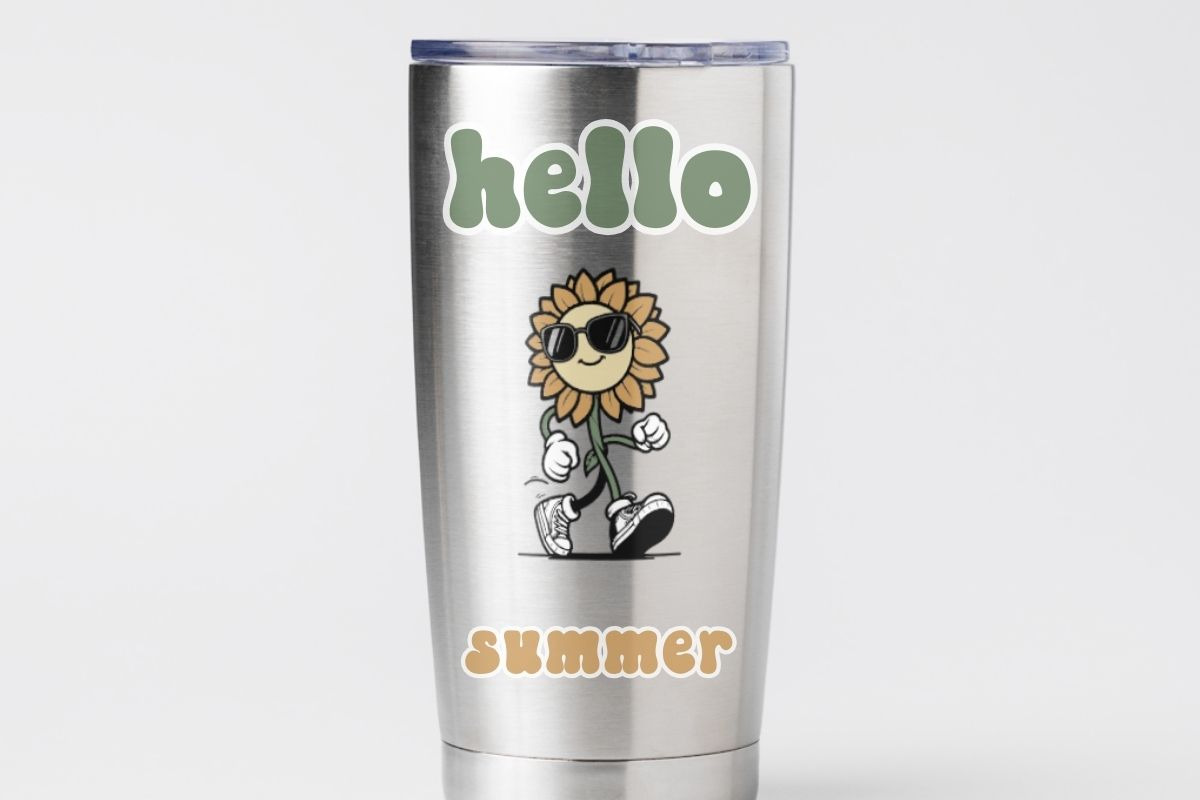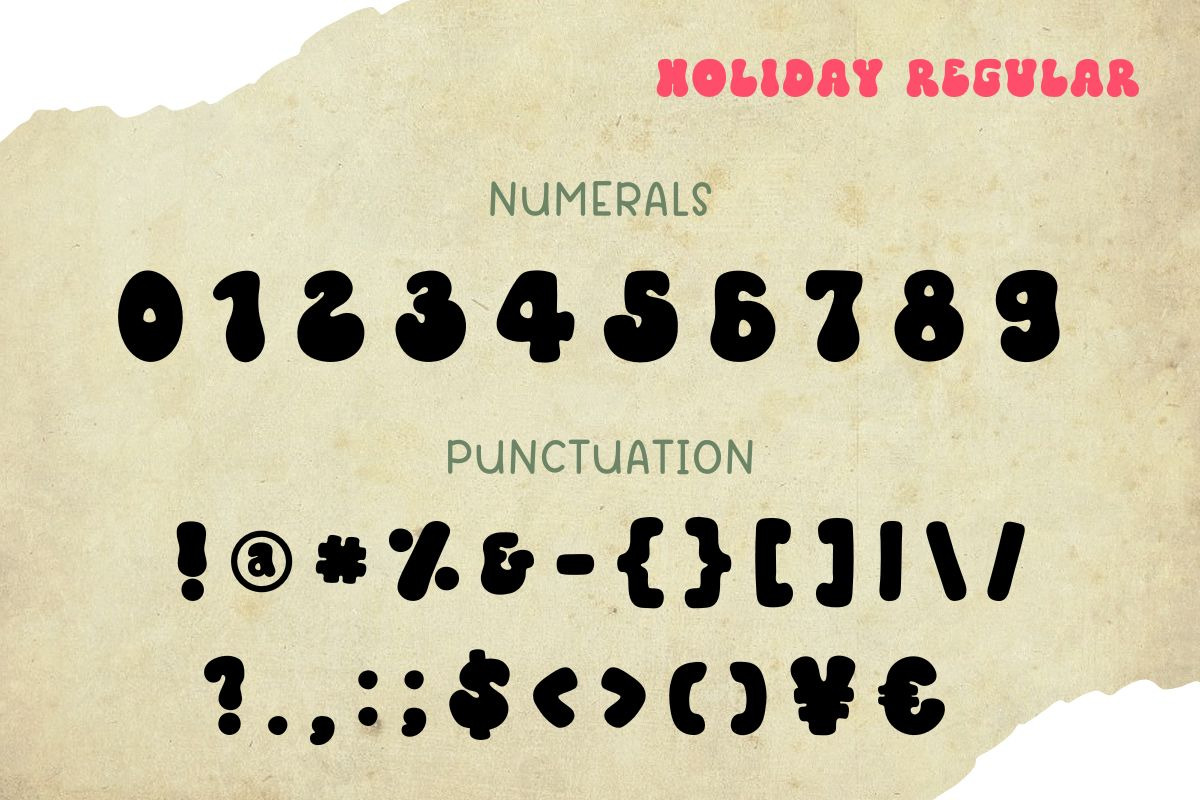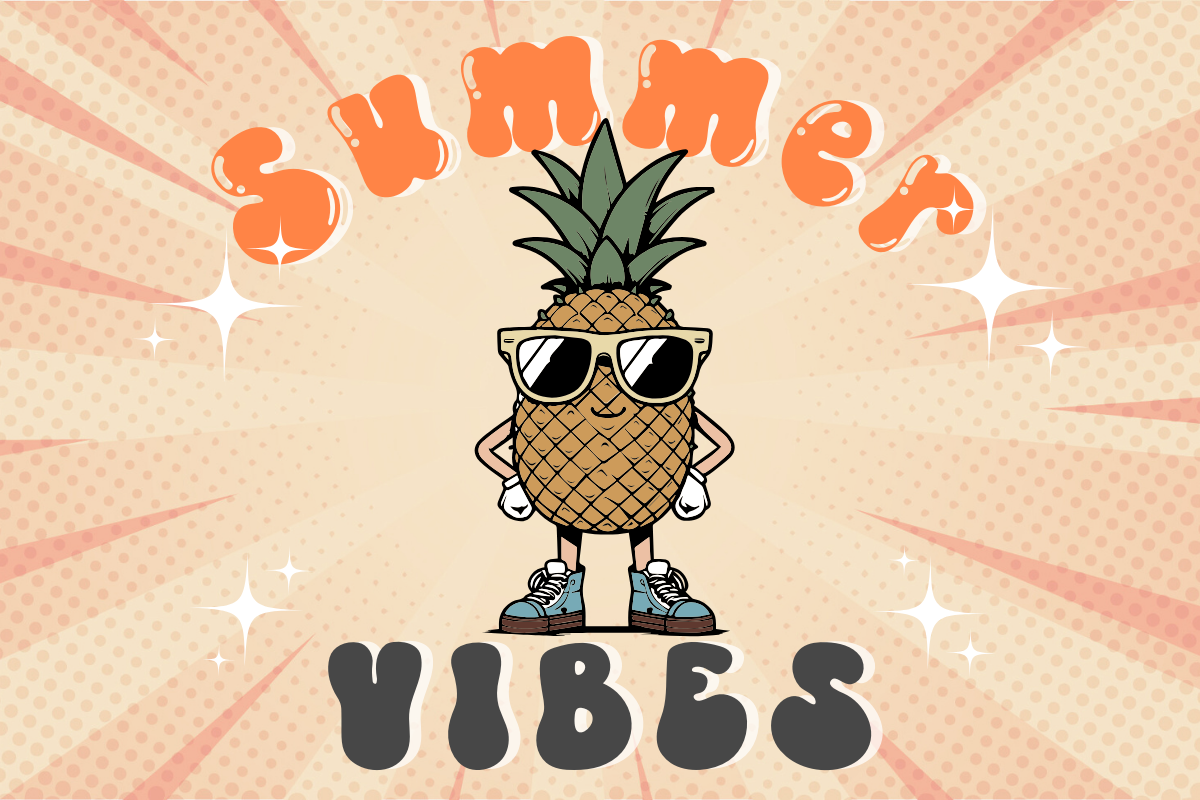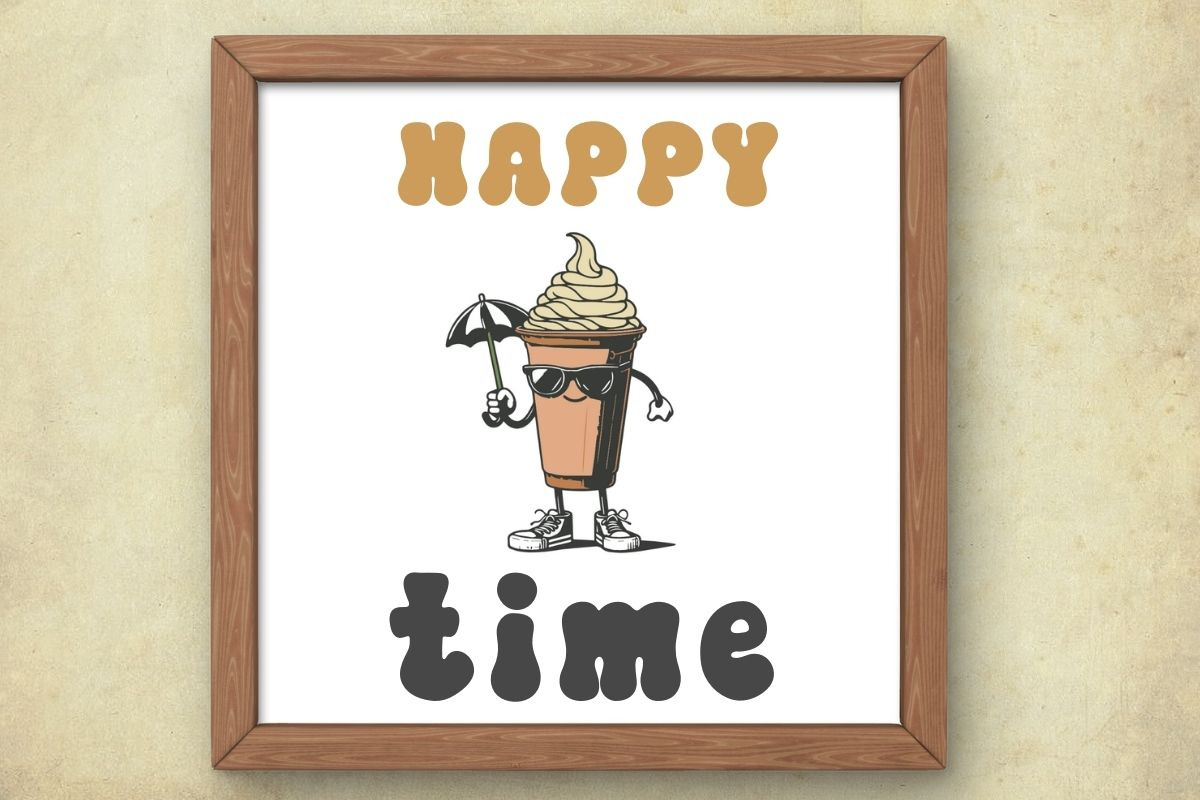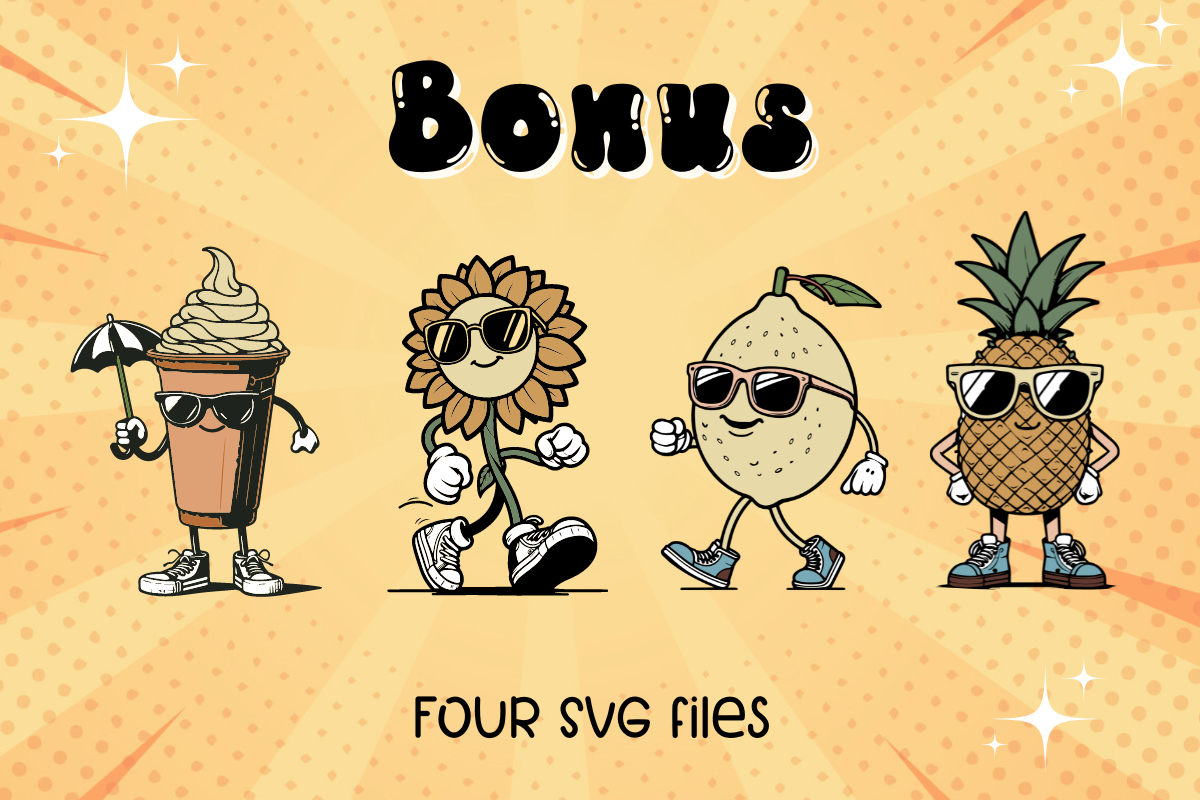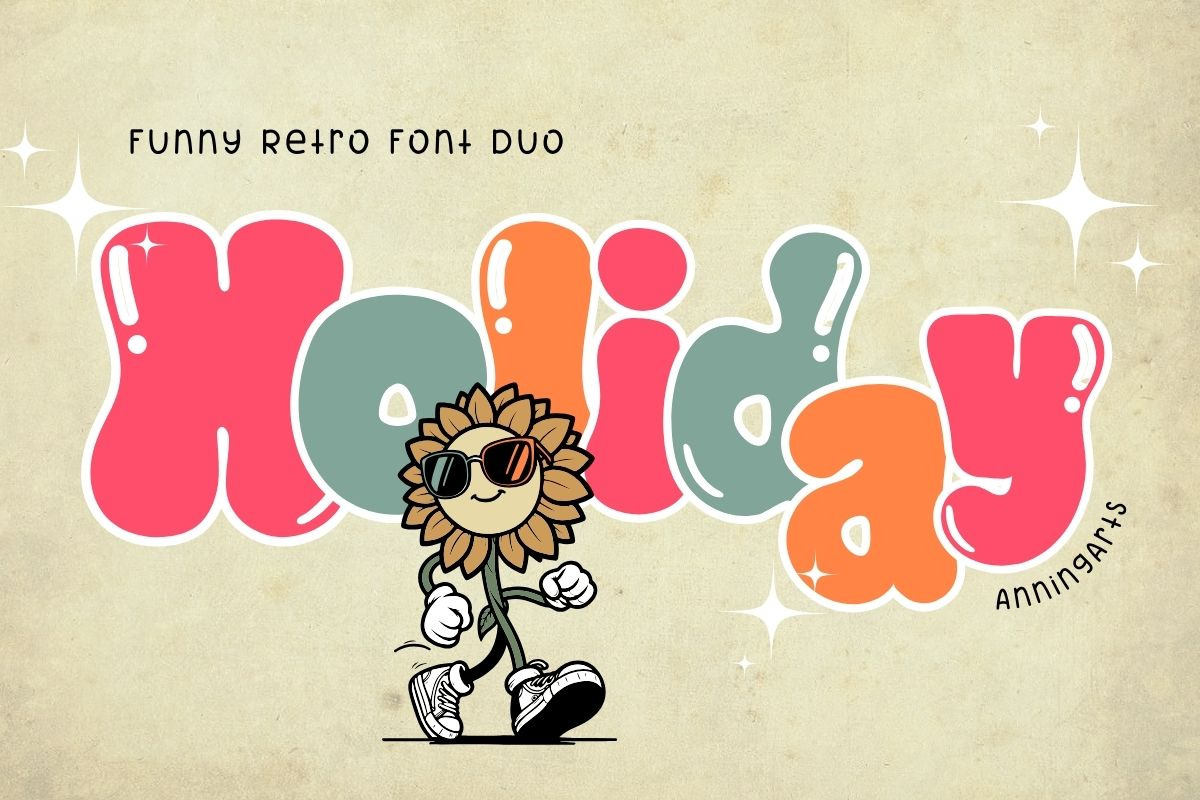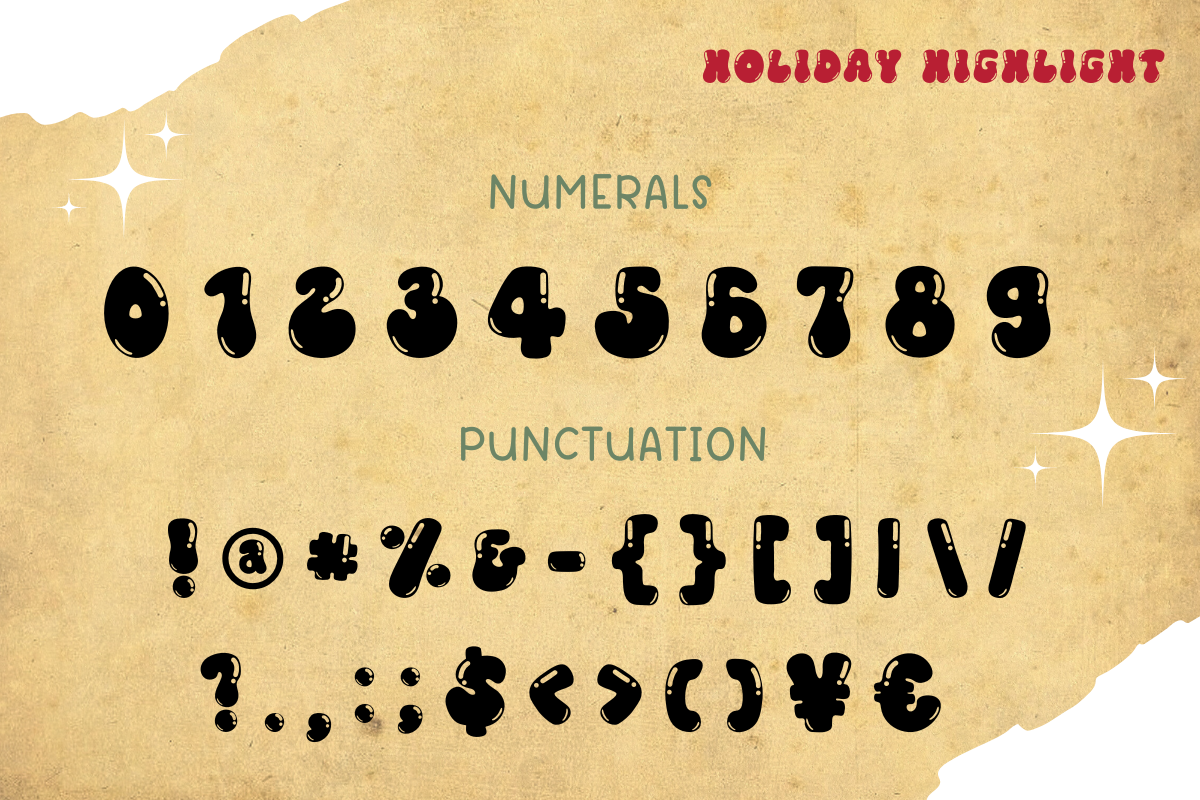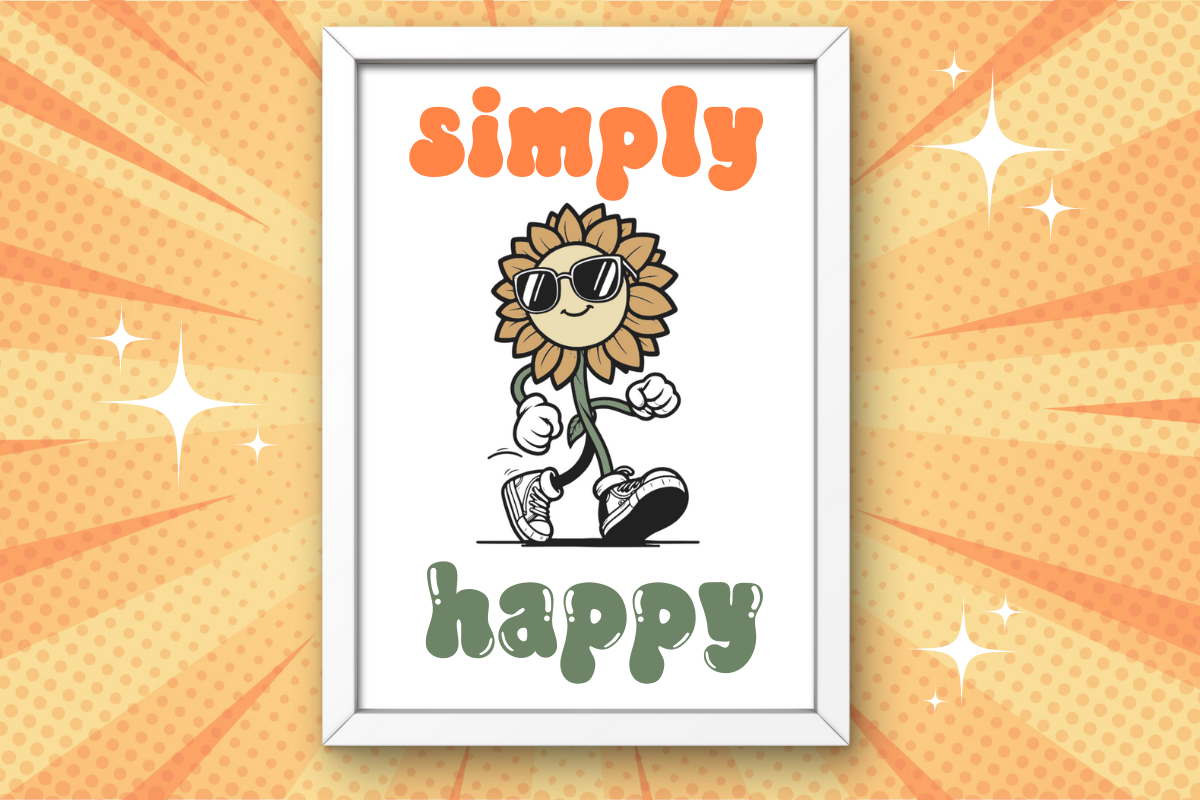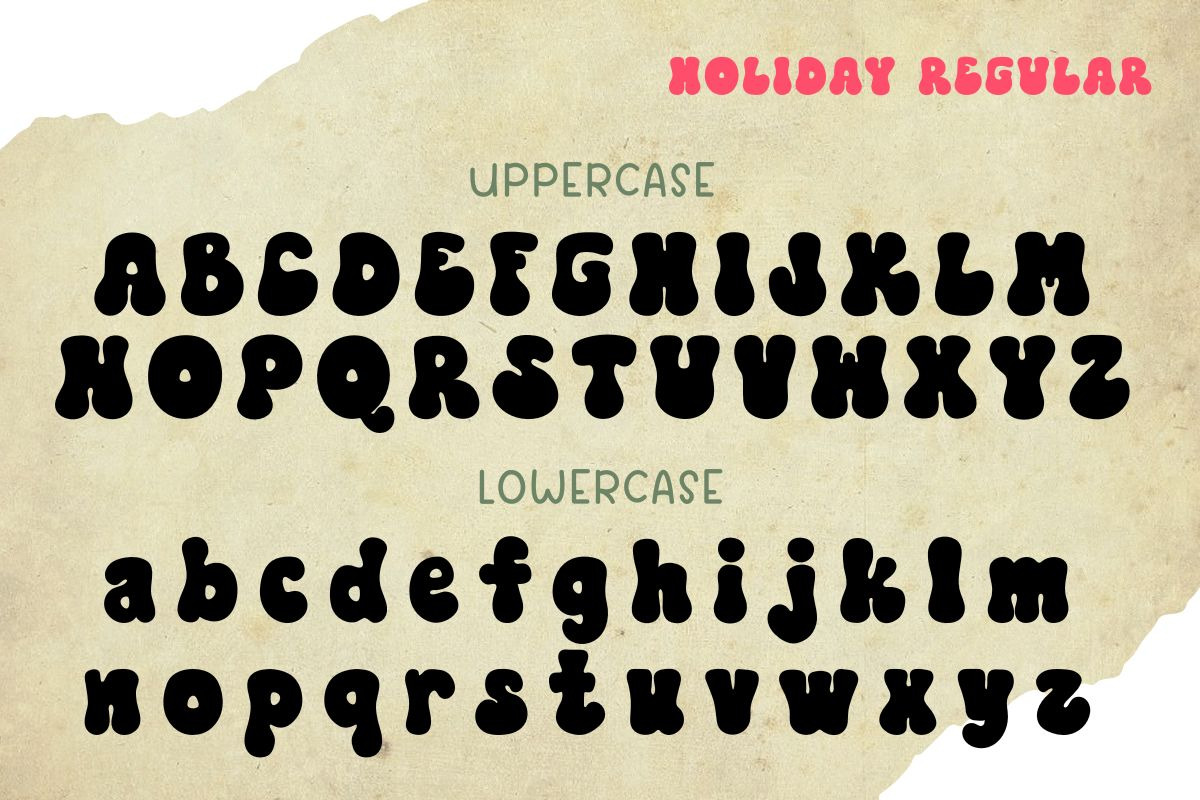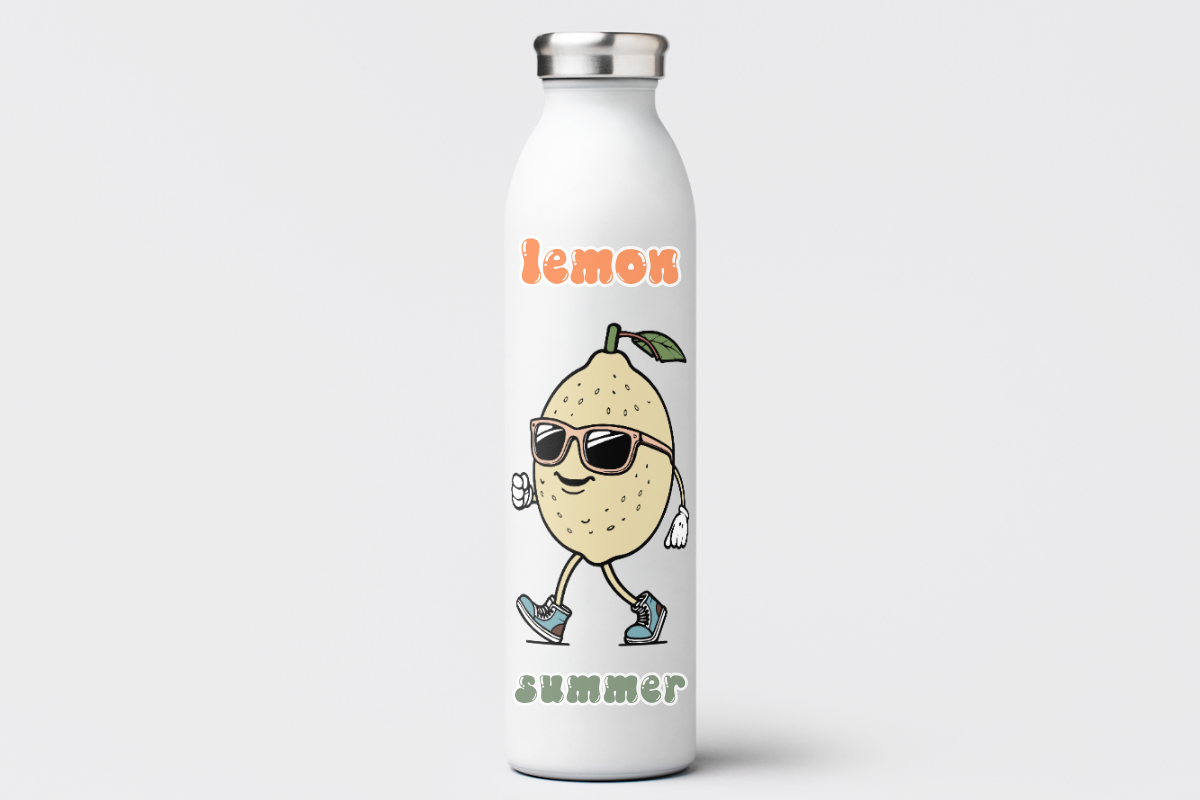
Holiday - Font Duo
Holiday is a cute display font duo. (Regular and Highlight) It is perfect for creating various new designs to match products such as banners, content, mugs, cards, shirts, stationery, social media posts, and more!